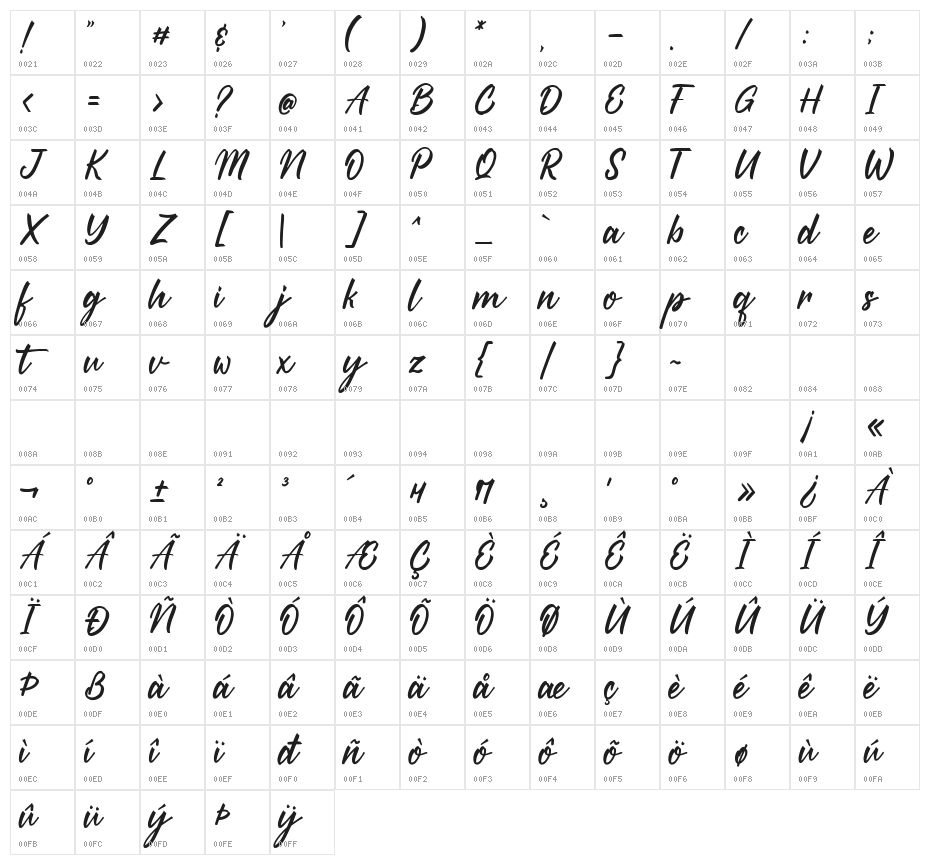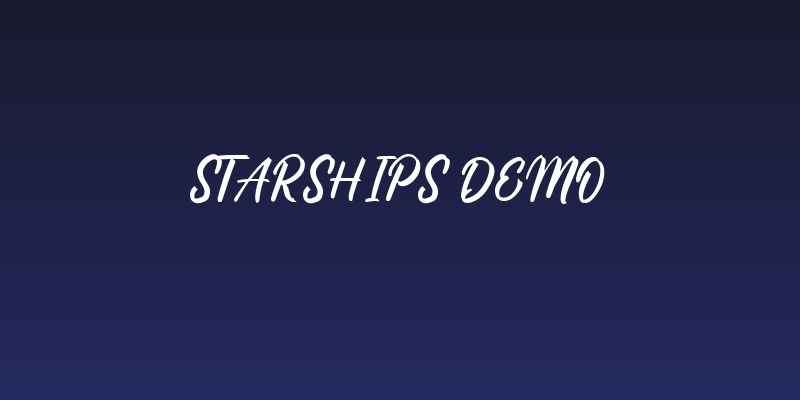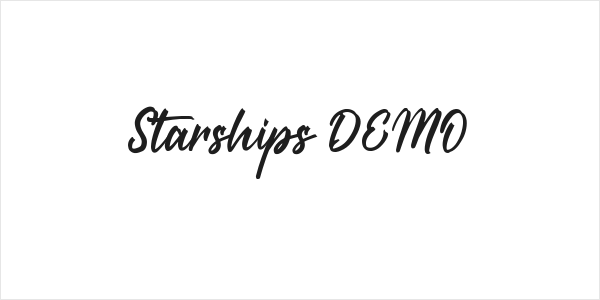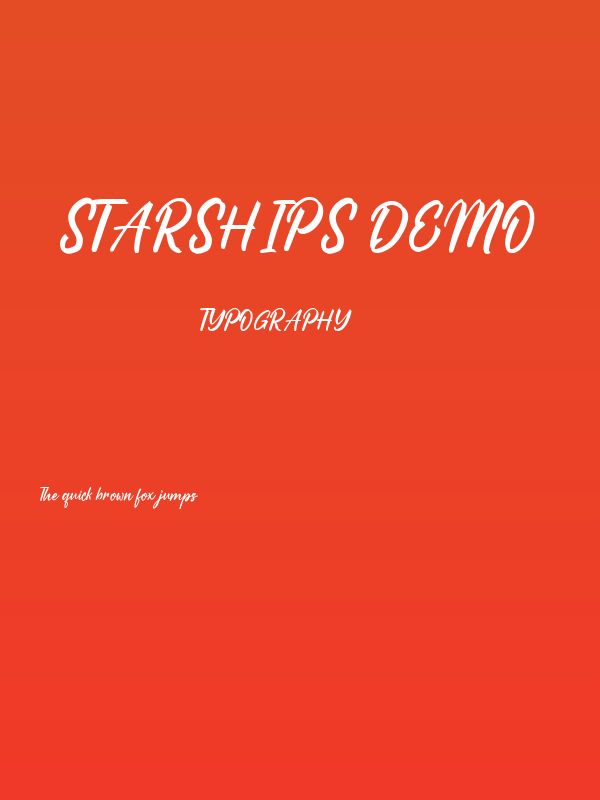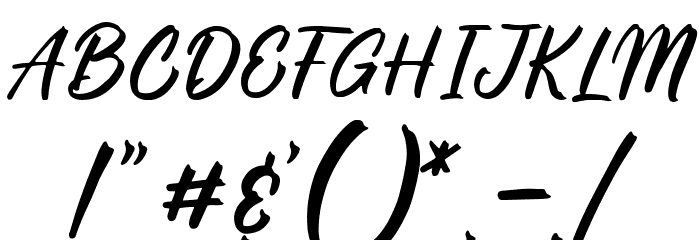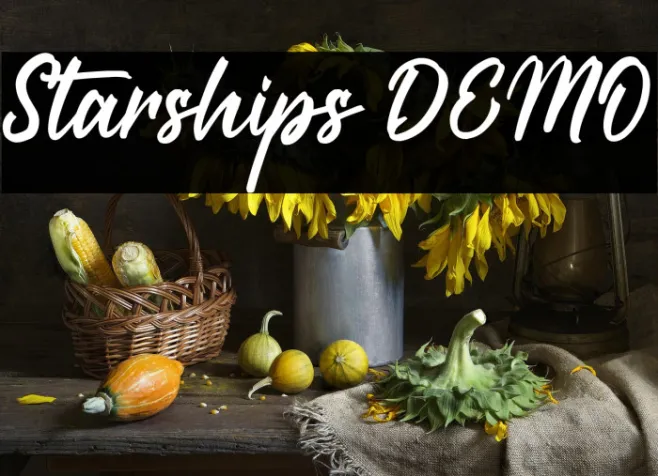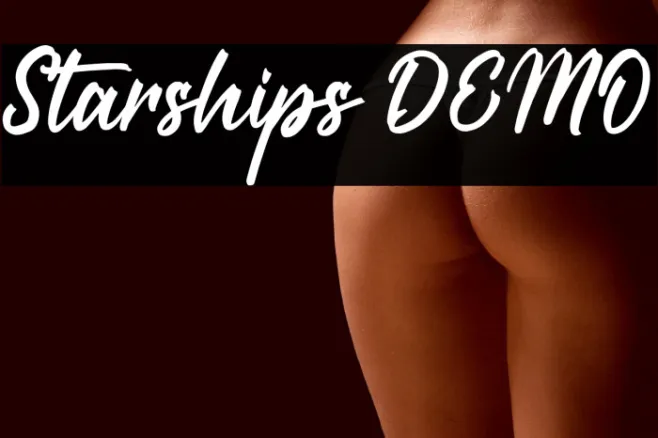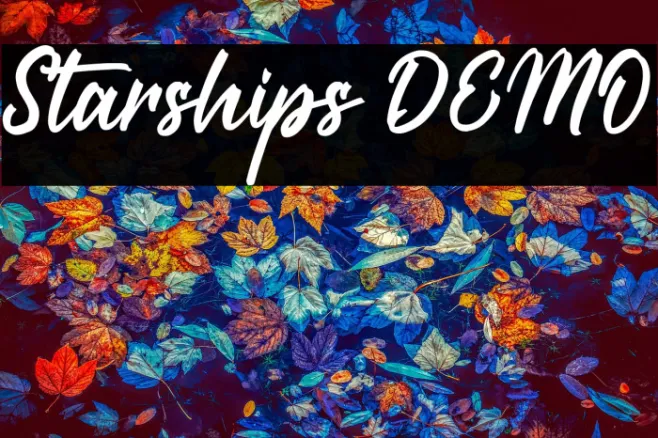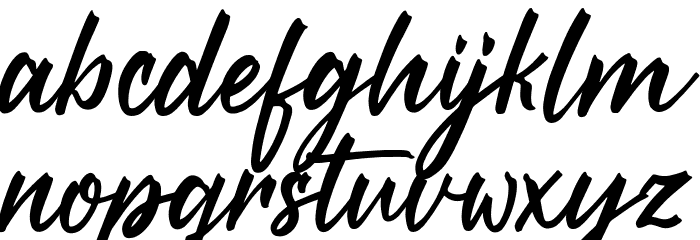
Starships DEMO Font
Starships DEMO Description
This font features a bold, expressive script style with a dynamic and flowing appearance. The characters are designed with a sense of movement, showcasing a handwritten quality that is both elegant and energetic. The uppercase letters are slightly more structured, while the lowercase letters exhibit a more fluid and cursive form. The strokes are thick and consistent, providing a strong visual impact. The special characters maintain the same lively style, ensuring a cohesive look across all elements. This font is ideal for projects that require a personal touch or a sense of creativity and flair.
| Proposed Projects | Ideal for branding, invitations, greeting cards, and creative projects that require a personal touch. |